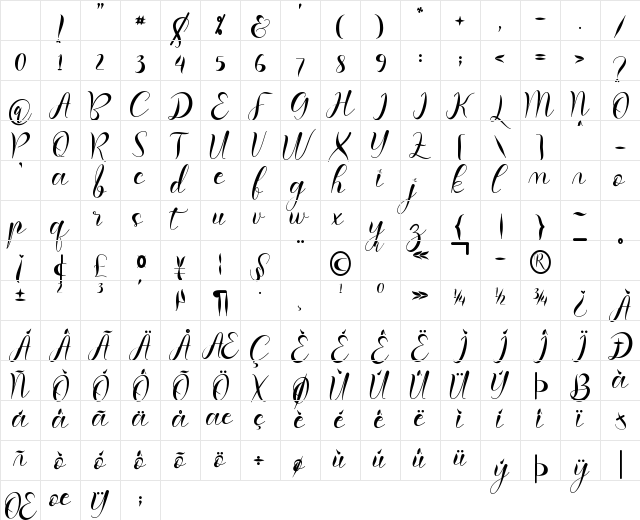
Complete Dabistha Regular glyph index. Displaying only characters natively supported by Dabistha Regular font.
Dabistha is a composed and adaptable typeface that performs quietly and consistently across a wide range of design contexts.